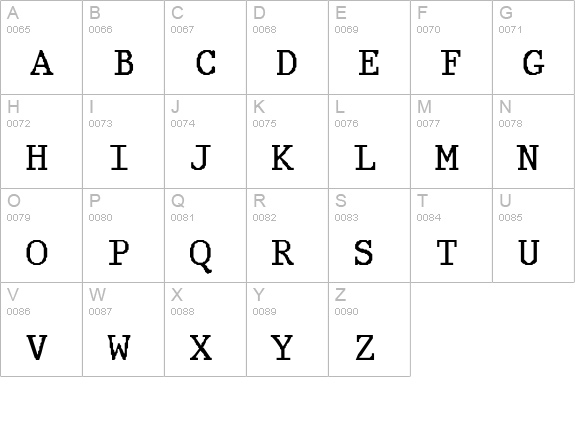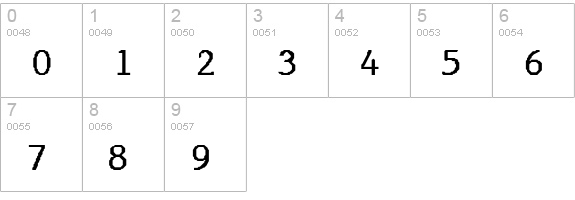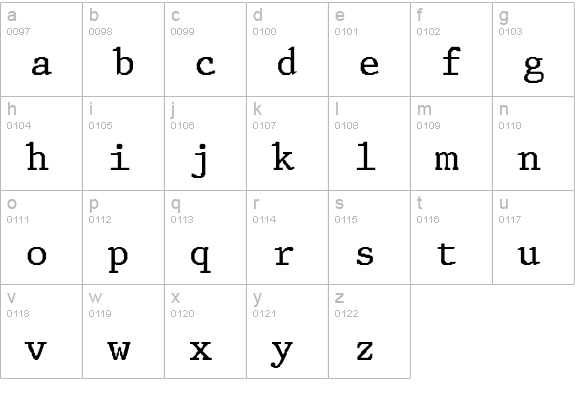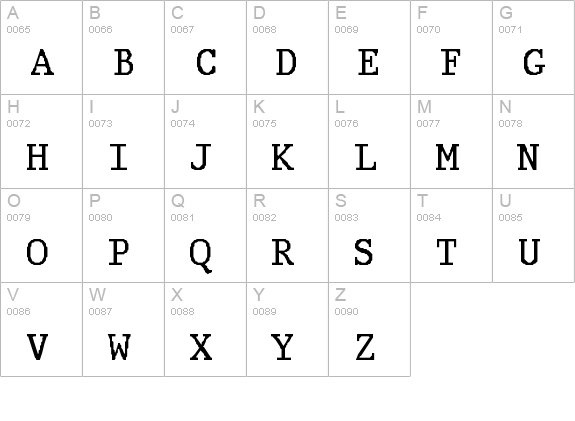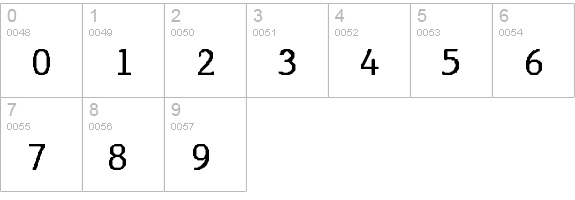
Prestige-Normal Font Details
Prestige-Normal is the standard, neutral variant in the Prestige typeface family \xE2\x80\x94 well suited to general body text, paragraphs, and standard typographic work.
Introducing Prestige-Normal font, a versatile and elegant typeface perfect for a wide range of design projects. With its clean lines and classic design, Prestige-Normal exudes sophistication and professionalism. This timeless font is ideal for creating sleek and polished branding materials, elegant invitations, stylish signage, and more. What makes Prestige-Normal even more appealing is that it is available for free download at FontsMarket.com. This means you can easily access this high-quality font without any cost, making it a valuable addition to your font collection. Whether you're a designer, business owner, or creative enthusiast, Prestige-Normal is sure to elevate your projects with its refined aesthetic and effortless charm. Don't miss out on the opportunity to enhance your designs with Prestige-Normal font - download it for free today at FontsMarket.com and experience the endless possibilities this versatile typeface has to offer.